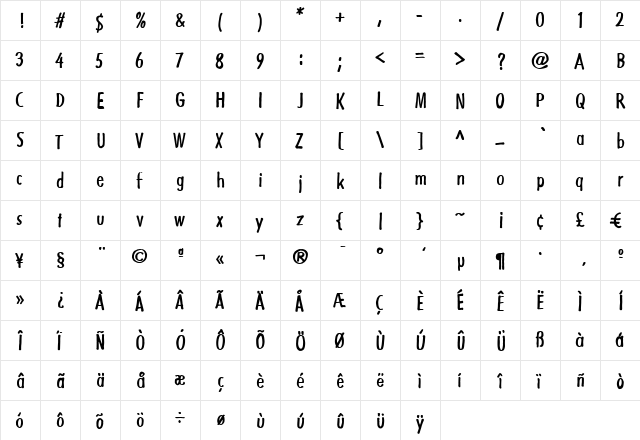
Futuramano Condensed Plain
Design Context for Futuramano Condensed Typeface
Futuramano Condensed channels digital-age aesthetics through its sharp, structured letterforms — ideal for brands that want to signal innovation. Its narrow stance lets it pack a punch even in space-constrained designs.
Pro Tip: Use Futuramano Condensed in combination with a neutral sans for body text. Let it define the brand voice in headlines while keeping reading comfortable elsewhere.